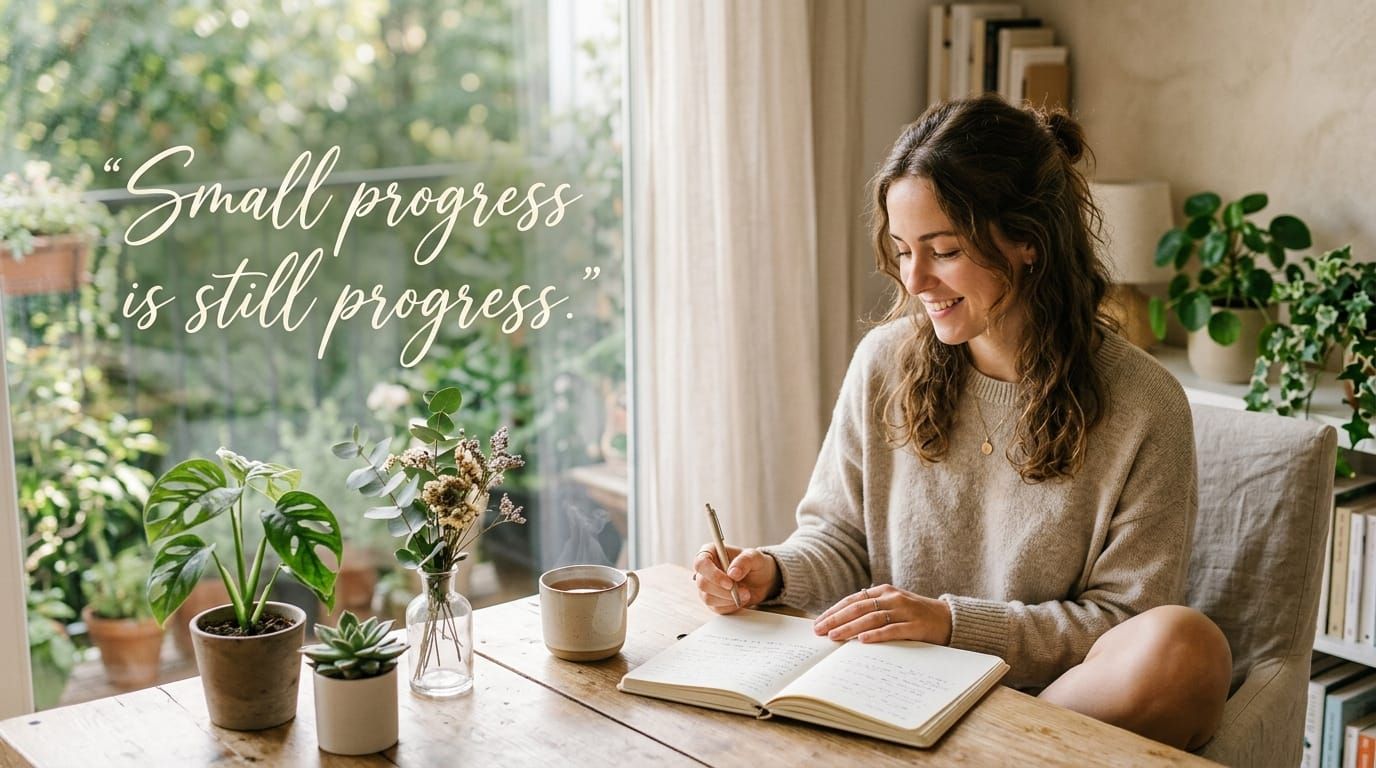
30 Positive Quotes That Bring Energy and Good Vibes
Starting your day with positive quotes can shift your mindset and help you focus on what truly matters. Whether you are building a brand, creating content, or simply looking for motivation, the right positive quotes can give you energy and clarity.
In this guide, you’ll discover 30 powerful positive quotes along with design ideas and font pairings inspired by DM Letter Studio. These positive quotes are perfect for social media, posters, and branding visuals.
Why Positive Quotes Help Build a Better Mindset
Reading positive quotes daily can improve your mindset and emotional balance.
Benefits of positive quotes:
• Boost motivation
• Increase focus
• Reduce stress
• Encourage consistency
Using motivational quotes regularly helps you stay aligned with your goals.
30 Positive Quotes That Inspire Energy and Good Vibes
Here are 30 carefully selected positive quotes:
1. “Start where you are and keep moving forward.”
2. “Small progress is still progress.”
3. “Your mindset creates your reality.”
4. “Stay consistent and results will follow.”
5. “Believe in yourself every single day.”
6. “Energy grows where focus goes.”
7. “You are capable of more than you think.”
8. “Do something today your future self will thank you for.”
9. “Stay positive and keep learning.”
10. “Good things take time, stay patient.”
11. “Focus on progress, not perfection.”
12. “Your effort matters more than your speed.”
13. “Keep going even when it feels hard.”
14. “Success starts with a positive mindset.”
15. “You don’t need to be perfect to succeed.”
16. “Every day is a fresh start.”
17. “Take action and build momentum.”
18. “Confidence comes from doing.”
19. “Create the life you want step by step.”
20. “Stay focused and trust the process.”
21. “You grow through what you go through.”
22. “Consistency builds success.”
23. “Make today count.”
24. “Choose progress over comfort.”
25. “Keep your energy positive.”
26. “Your journey is your strength.”
27. “Stay motivated and keep improving.”
28. “You are closer than you think.”
29. “Turn challenges into opportunities.”
30. “Keep showing up every day.”
These inspirational quotes are simple, clear, and easy to use in content.
Positive Quotes for Daily Motivation and Content Creation
If you are a creator, motivational quotes are powerful content assets.
You can use motivational quotes for:
Combining motivational quotes with strong typography will make your content stand out.
Font Pairing Ideas for Positive Quotes
Typography is key when presenting quotes. Here are curated font pairings inspired by DM Letter Studio styles:
1. Script + Clean Sans Serif
Primary Font: Bambang Signature, Beauty Signature
Secondary Font: Rosa, Honeyquill
Best for premium and elegant quotes designs.
2. Playful Display + Simple Sans
Primary Font: Blunt Bubble, Sugar Donut
Secondary Font: Playwrite, Taperon
Perfect for light and energetic quotes.
3. Serif + Minimal Sans
Primary Font: Fleur Bleue, Janethville
Secondary Font: Cozy Stroke, Linova
Great for refined and editorial quotes.
4. Handwritten + Neutral Sans
Primary Font: Sparkling Bright, Hellena
Secondary Font: Loopela, Rillwood
Ideal for emotional and relatable quotes.
5. Bold Display + Thin Sans
Primary Font: Summer Heaven, Beach Crush
Secondary Font: Anya Slab, Linova
Best for bold and eye-catching quotes posters.
Design Tips to Make Positive Quotes Look Professional
To elevate your quotes, follow these design tips:
1. Keep Layout Clean
Avoid clutter and focus on readability.
2. Use Proper Hierarchy
Highlight key words in your quotes.
3. Choose Balanced Colors
Match colors with the mood of your quotes.